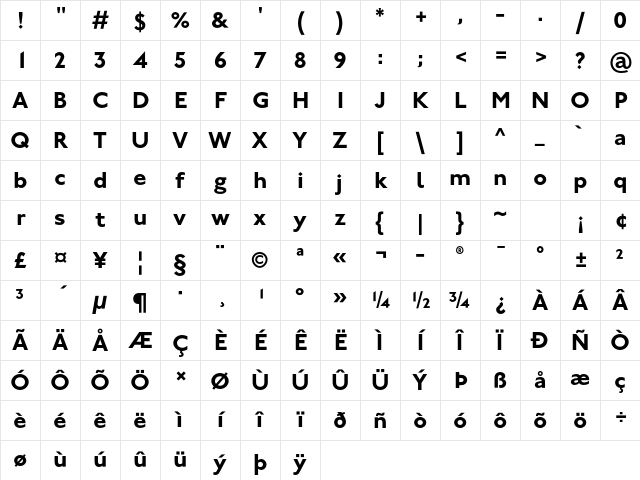
Johnston ITC Std Bold
Designer: Dave Farey and Richard Dawson
Design Context for Johnston ITC Std
Johnston ITC Std is a composed and adaptable typeface that performs quietly and consistently across a wide range of design contexts. Its bold stroke weight gives it real presence on the page.